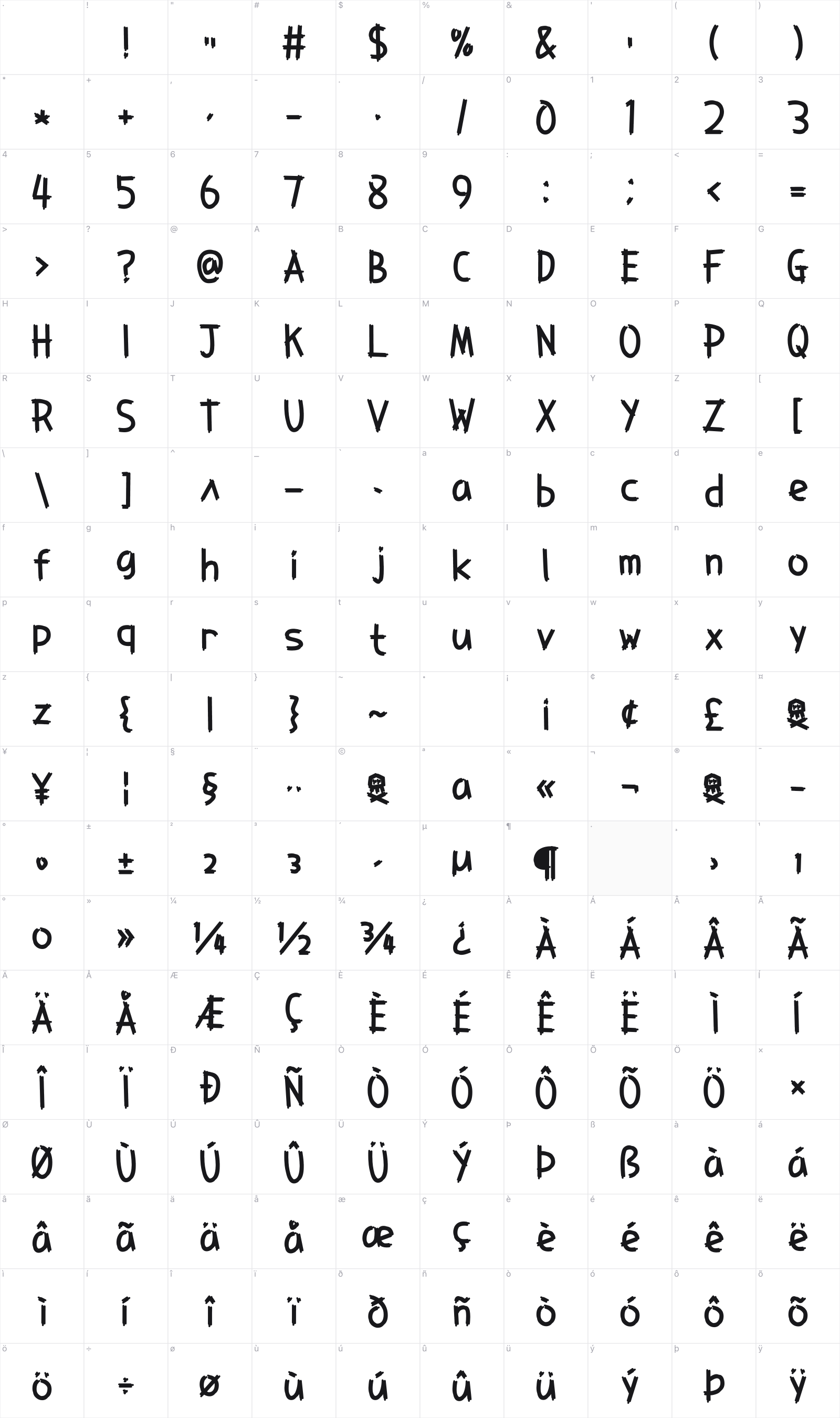
Sawyers Whitewash
Sawyers Whitewash is a bold, casual handwritten face from Chequered Ink that captures the energy of someone lettering a sign with a thick marker in a hurry. The strokes are rough and uneven, with visible texture that keeps things feeling loose and spontaneous rather than polished. It works well for headlines, posters, and packaging where you want something playful and informal with enough weight to hold its own.